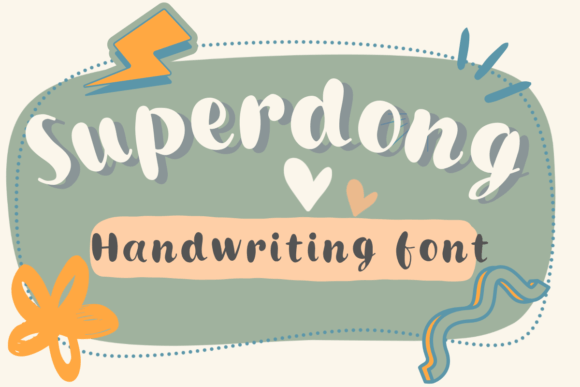
Introducing Superdong Font, a captivating script font that exudes charm and playfulness. This enchanting creation by Digital Creative Art is a true gem for fashion-forward designers and creative minds. Superdong's elegant curves and delicate strokes infuse a sense of whimsy and joy into any project, making it an ideal choice for crafting wedding invitations, greeting cards, logos, branding, and more.
Dive into the world of Superdong and discover a font that's more than just a collection of letters and symbols. It's an expression of individuality, a reflection of your unique style. Whether you're a seasoned designer or just starting your creative journey, Superdong will become your trusted companion, adding a touch of magic to your digital creations.
Imagine your words dancing across the page, adorned with Superdong's graceful lines. Each character carries a story, evoking emotions and captivating the hearts of your audience. From heartfelt messages to playful greetings, Superdong transforms ordinary text into an extraordinary visual experience.
Unlock the endless possibilities of Superdong and embark on a creative adventure like no other. Let your imagination soar as you explore the myriad ways in which this remarkable font can elevate your designs. From eye-catching headlines to captivating social media posts, Superdong will help you make a lasting impression and leave your mark in the digital realm.
But Superdong isn't just a pretty face. Its versatility extends beyond aesthetics, making it a practical choice for both personal and professional projects. Whether you're creating school assignments, crafting marketing materials, or designing stunning visuals for your website, Superdong will seamlessly adapt to your needs, delivering impeccable results every time.
Join the growing community of creatives who have embraced Superdong's allure. Let your designs blossom with its enchanting beauty and experience the joy of creating projects that resonate with your audience. Superdong is more than just a font; it's an invitation to unleash your creativity and make a statement in the world of design.